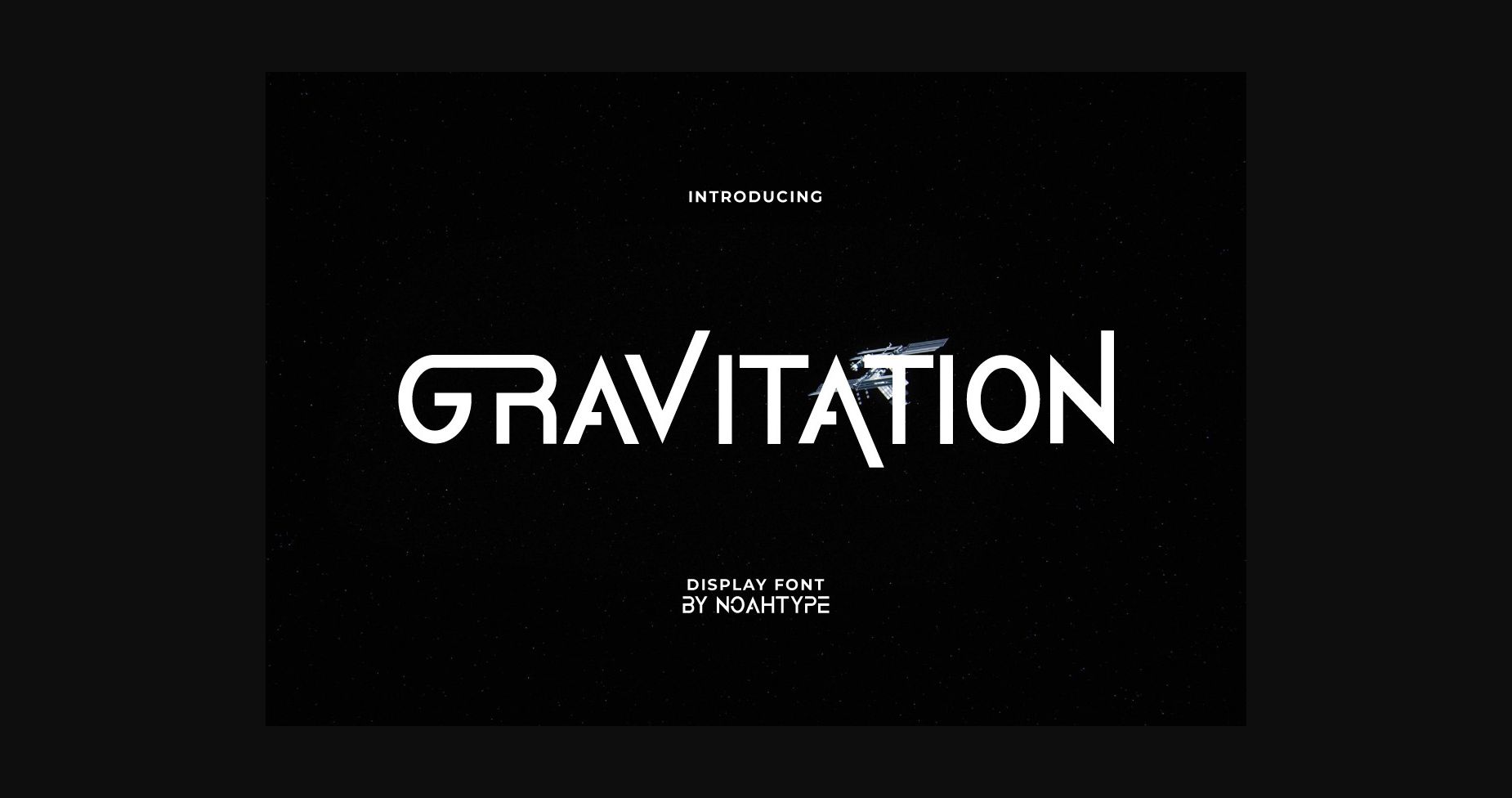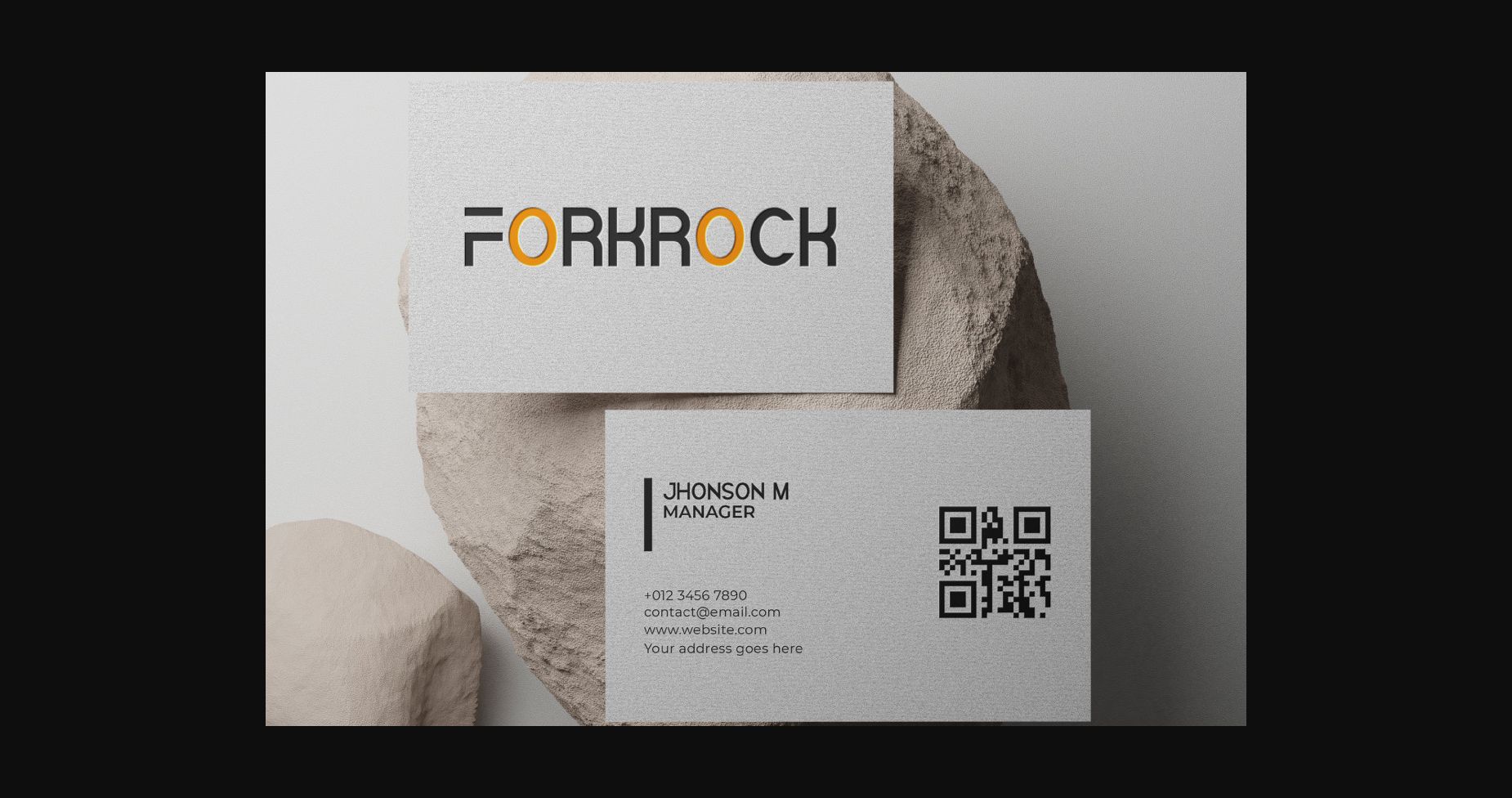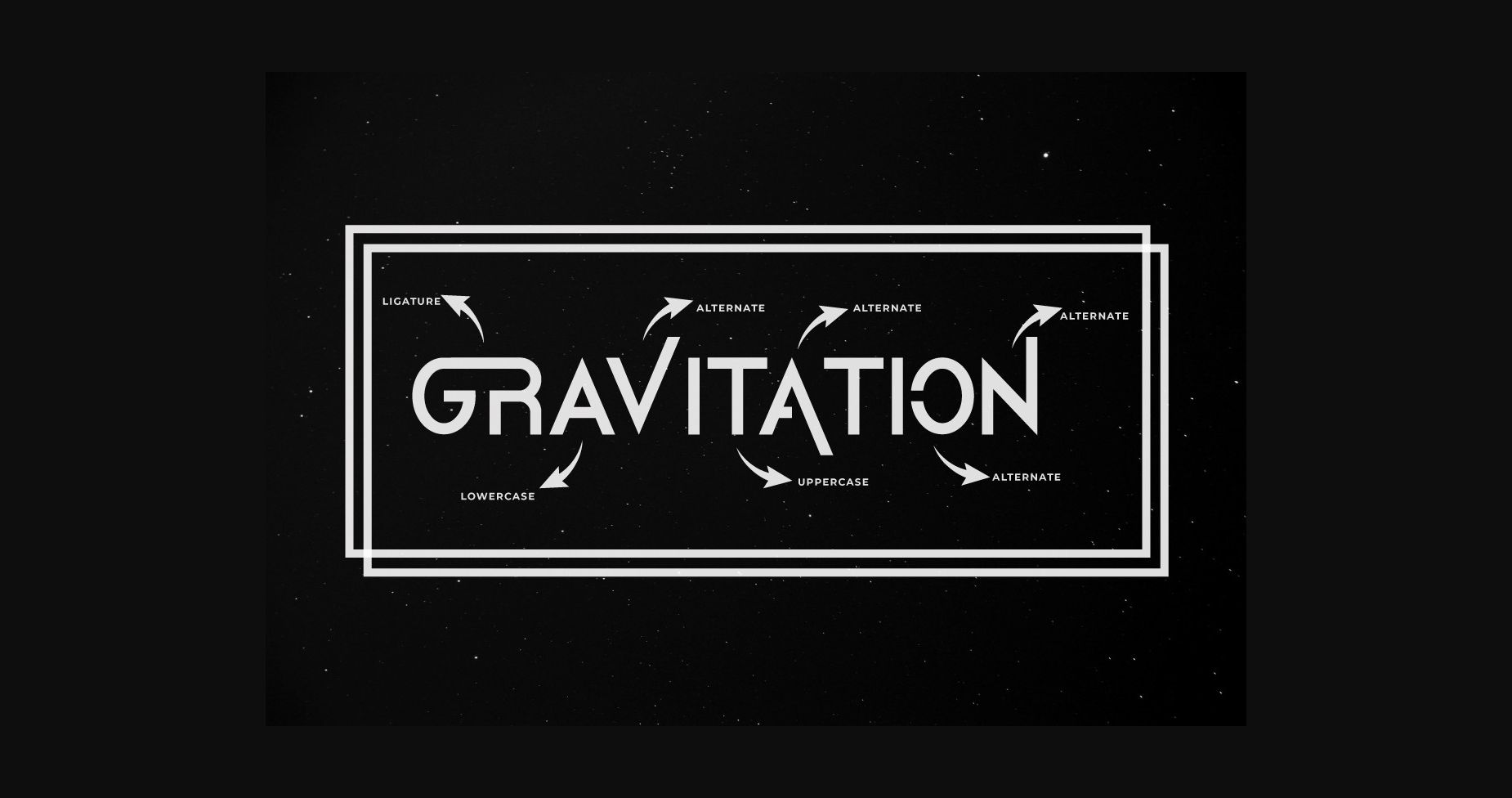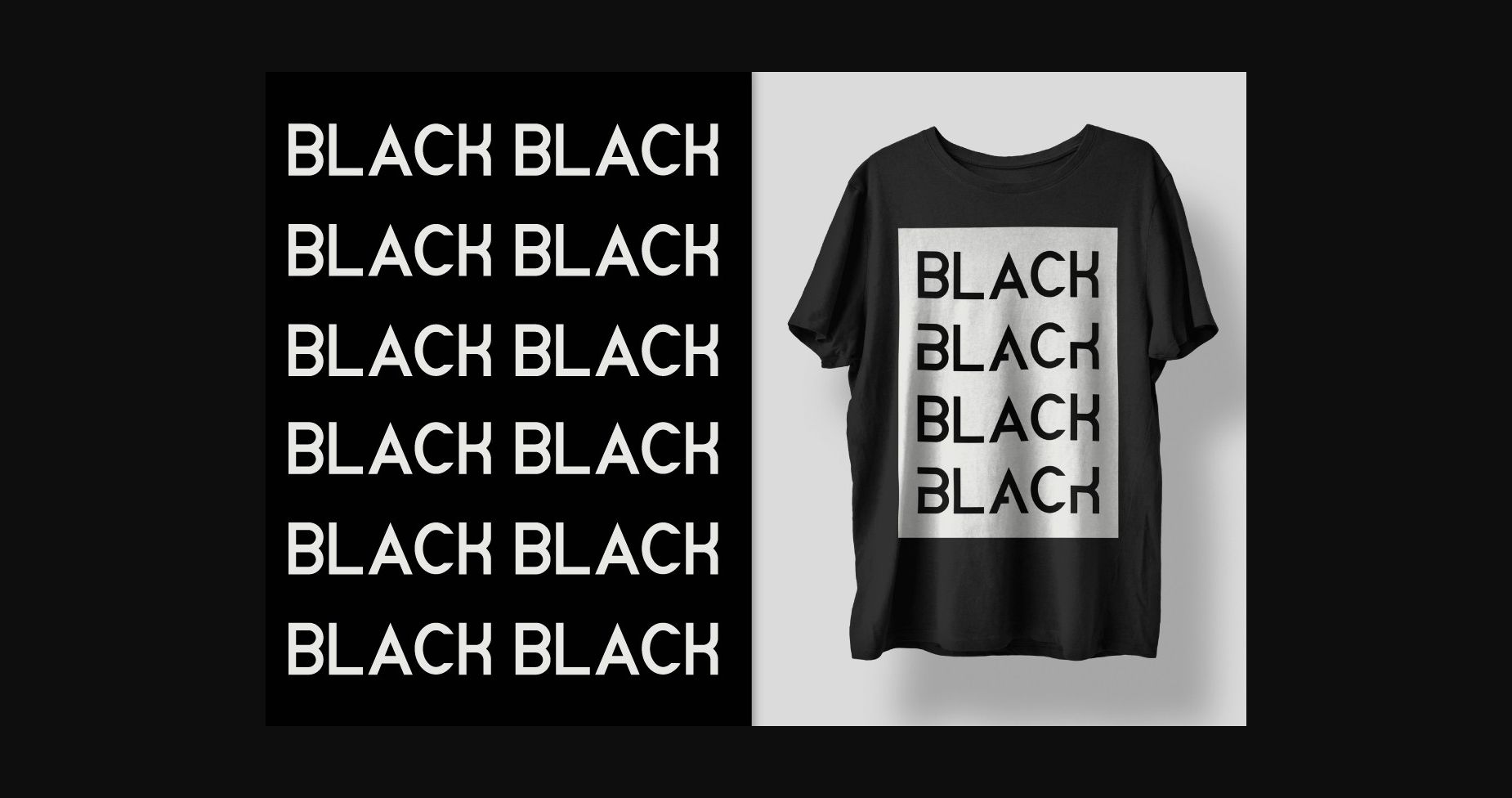
About Gravitation Font
Gravitation Font is a modern sans serif font that will bring a special effect to any design. Its strong characters will look great in games, technology, events, headlines, logos, posters, titles, or any modern project that you may have in mind.